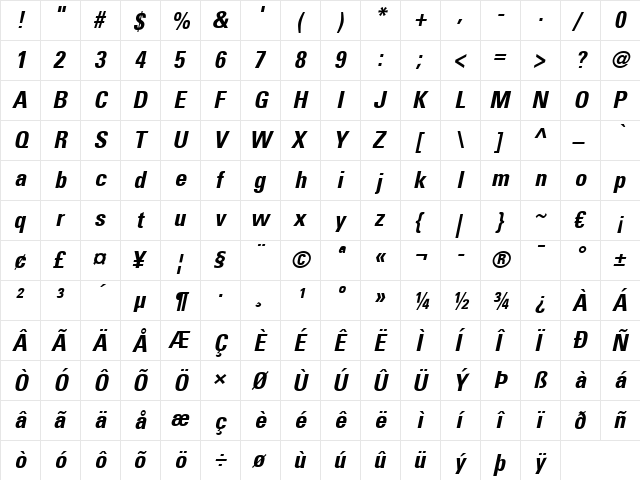
Univers LT 47 CondensedLt Bold Italic Font Preview
Design Context for Univers LT 47 CondensedLt Typeface
Univers LT 47 CondensedLt offers clean, dependable letterforms without strong stylistic allegiance, making it a practical choice for designers who need flexibility. Its italic angle brings a sense of urgency and motion to the letterforms. The heavy weight commands attention and anchors typographic hierarchies. Its narrow stance lets it pack a punch even in space-constrained designs.
Pro Tip: Use Univers LT 47 CondensedLt for emphasis, pull quotes, and subheadings where its slanted energy can add rhythm to the layout.